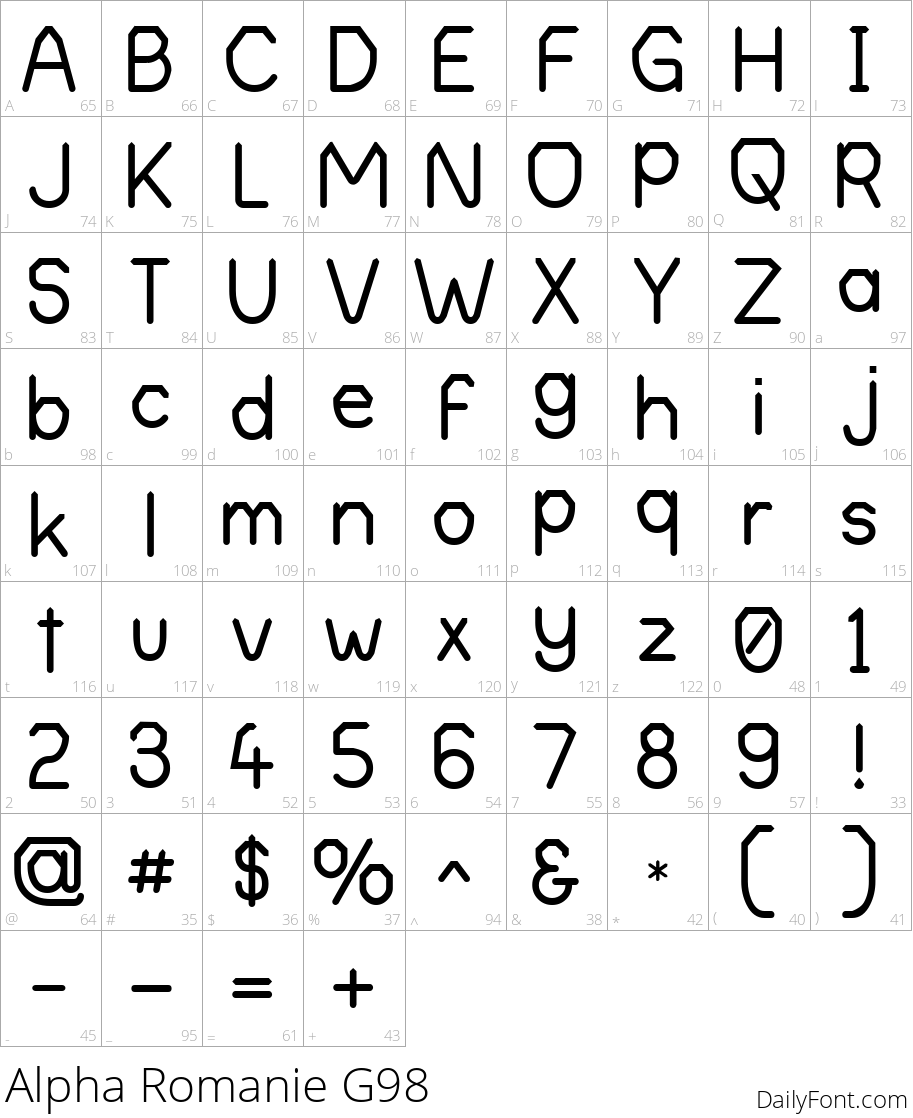
Alpha Romanie G98
Simple, friendly rounded sans for clean everyday text
Alpha Romanie G98 keeps its rounded sans-serif letters simple and consistent, closer to an early-reader primer typeface than a decorative display face. It reads clearly and warmly without any rough edges or flourishes.